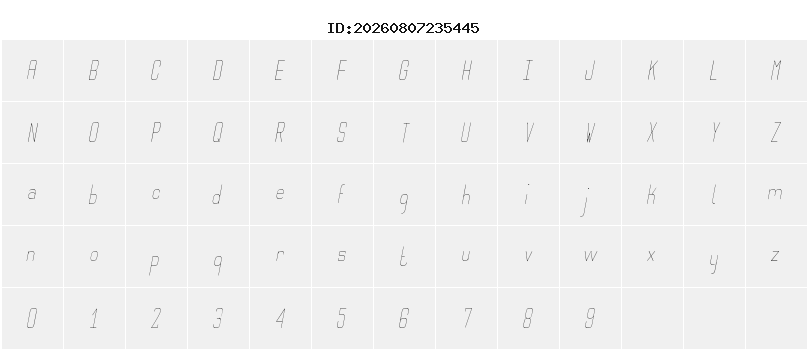
• Font Name: Puente Estrecho St
• Full Font Name: Puente Estrecho St
About Puente Estrecho St.ttf
Puente Estrecho St.ttf is a modern, elegant sans-serif font designed for ultimate readability and visual harmony. Perfect for branding, headlines, web design, and print materials.